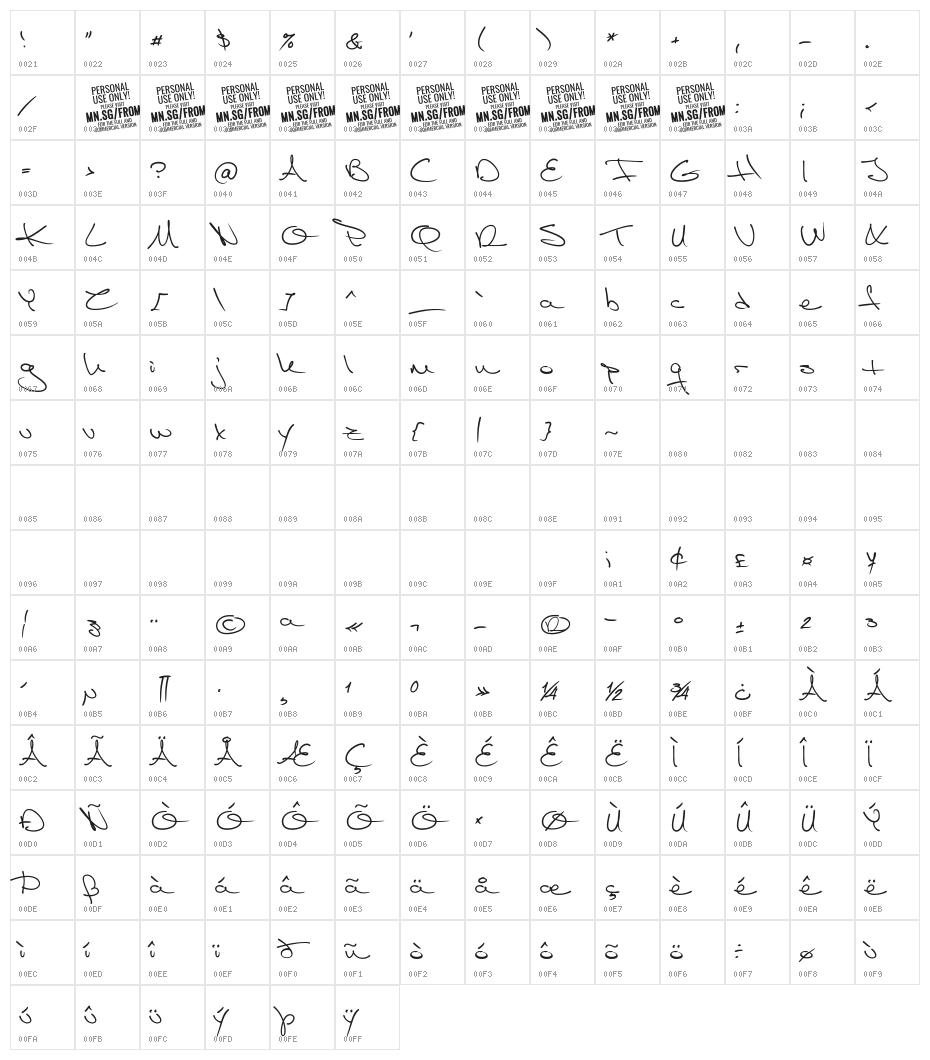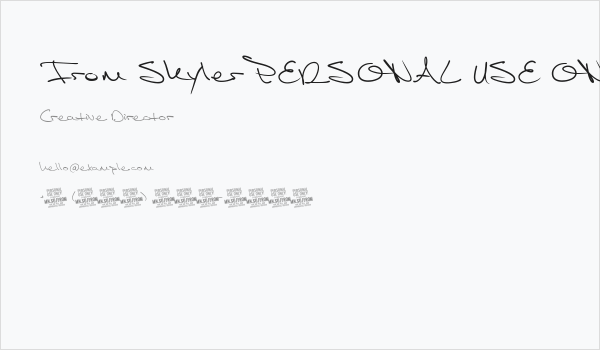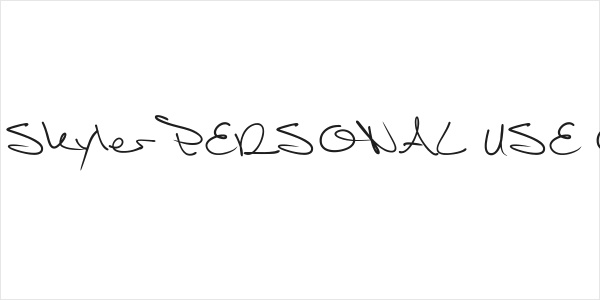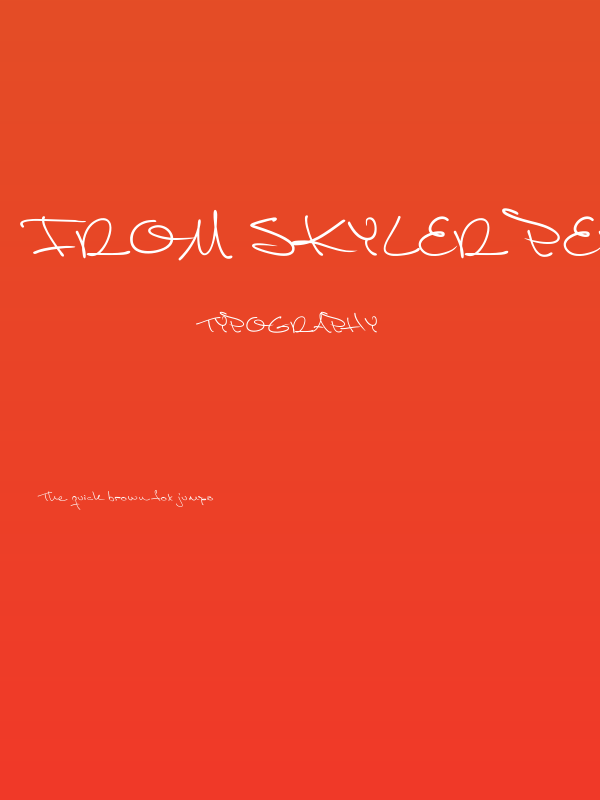
From Skyler PERSONAL USE ONLY Font
From Skyler PERSONAL USE ONLY Description
This font exhibits a dynamic and expressive handwritten style, characterized by fluid and irregular strokes that convey a sense of spontaneity and creativity. The uppercase and lowercase letters are crafted with a casual flair, featuring varying line thicknesses that add to its organic feel. The characters are slightly slanted, enhancing the informal and personal touch. The numerals and special characters maintain the same lively aesthetic, ensuring consistency across all glyphs. This font is ideal for projects that require a personal, artistic touch, such as invitations, greeting cards, or creative branding.
| Proposed Projects | Ideal for invitations, greeting cards, artistic branding, and personal projects. |